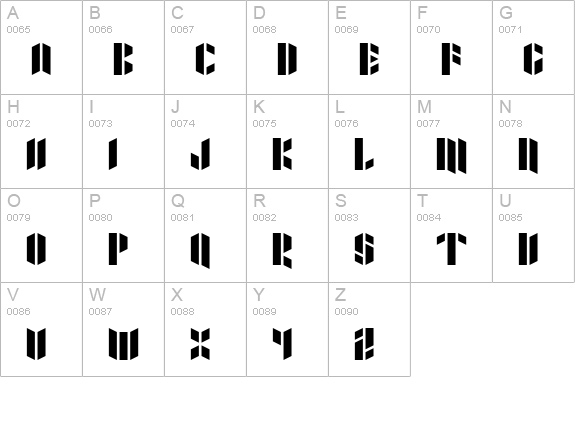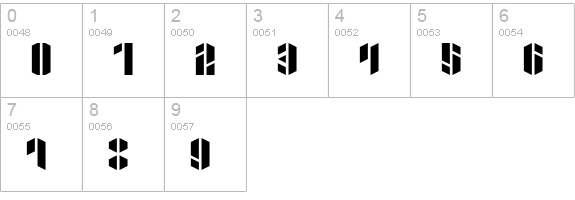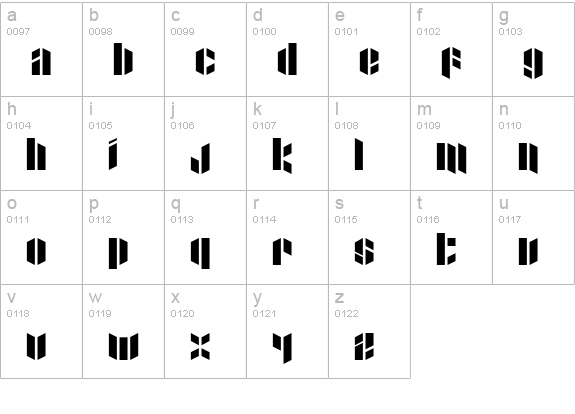
Xacto Blade Font Details
Introducing the exquisite Xacto Blade font - a modern and sleek typeface that exudes sophistication and precision. Designed with sharp edges and clean lines, this font is perfect for projects that require a bold and powerful statement. The Xacto Blade font offers a unique combination of elegance and strength, making it ideal for a wide range of design applications. What sets the Xacto Blade font apart is not just its striking aesthetics, but also the fact that it is available for free download at FontsMarket.com. Yes, you read that right - this exceptional font can be yours at no cost, allowing you to elevate your designs without breaking the bank. Whether you're working on branding, packaging, posters, or any other creative project, the Xacto Blade font is sure to make a lasting impression. Don't miss out on this opportunity to enhance your design arsenal with the Xacto Blade font. Download it today and experience the power of premium typography without spending a dime.